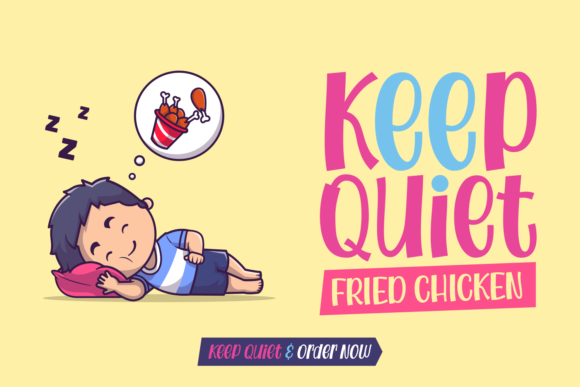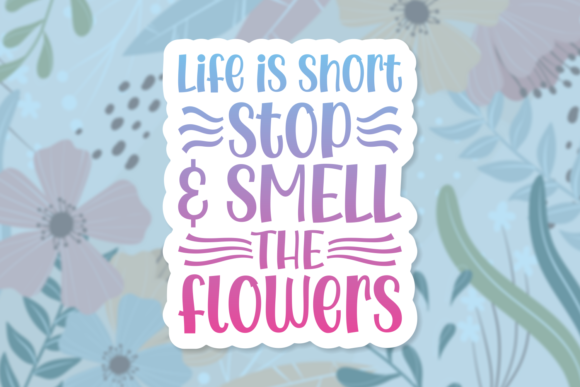
Quirky United Font
db-ku.com - Script & Handwritten -- Quirky United is a lovely and timeless handwritten font. It is the best choice for creating eye catching logos, branding and quotes. Every letter has a unique and beautiful touch, which will make your design come alive! This font is PUA encoded which means you can access all of the amazing glyphs and ligatures with ease!